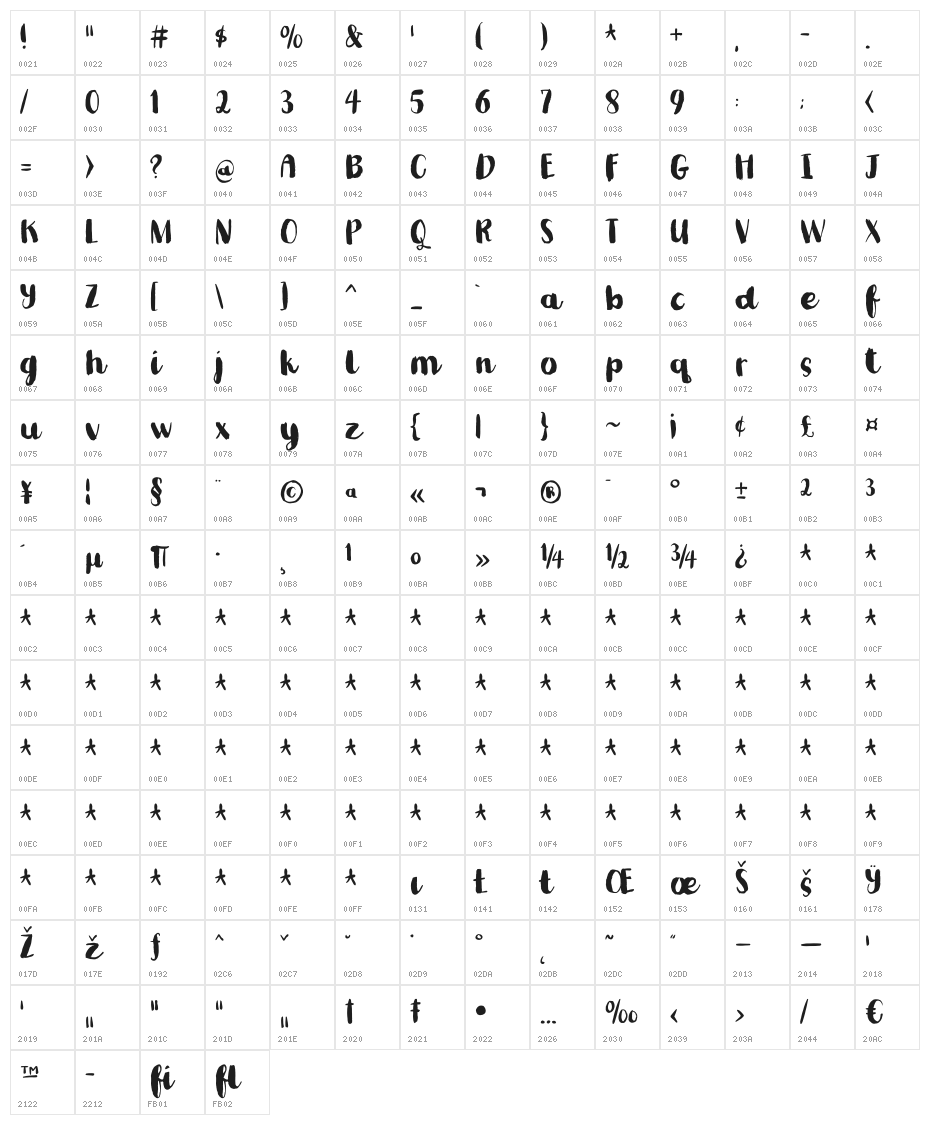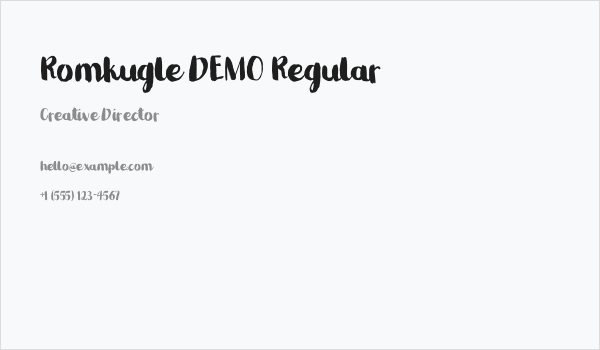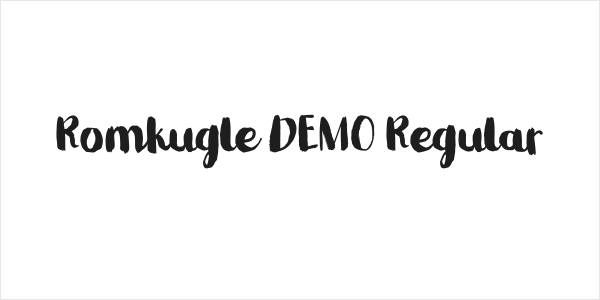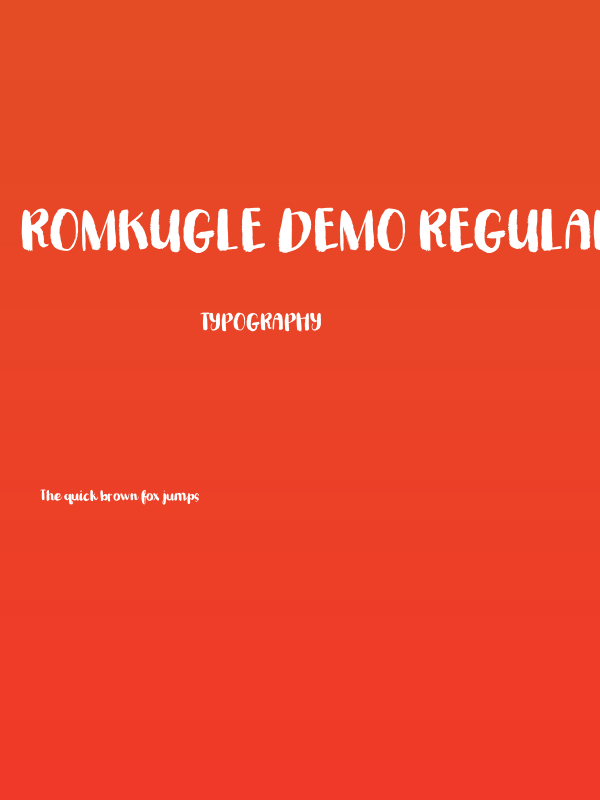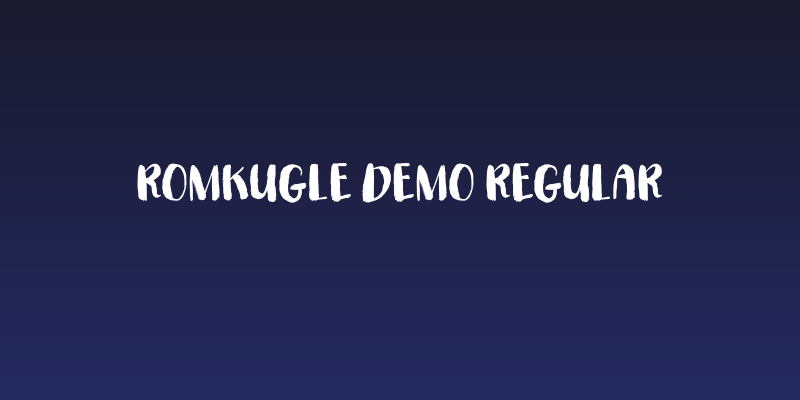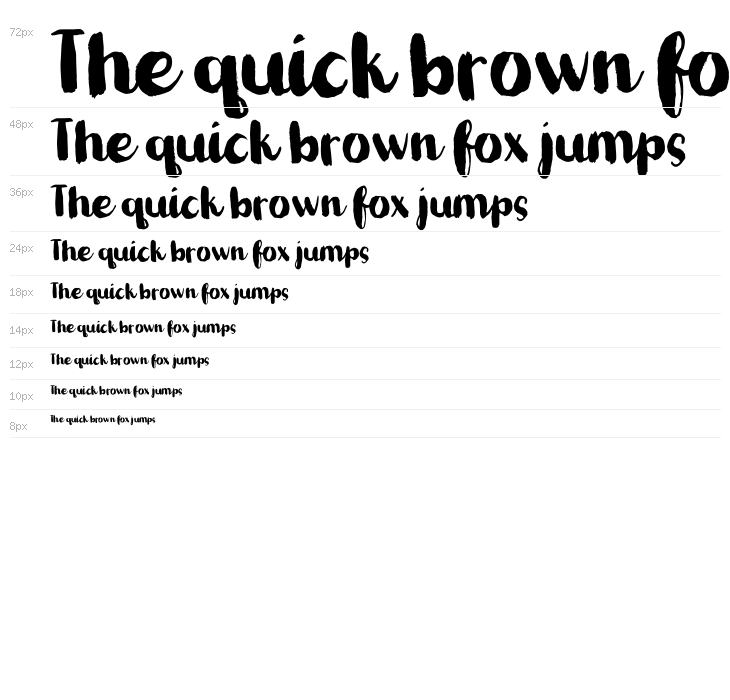
Romkugle DEMO Regular Font
Romkugle DEMO Regular Description
This font features a bold, brush-like style with a hand-painted appearance. The strokes are thick and expressive, giving it a dynamic and artistic feel. The uppercase letters are tall and commanding, while the lowercase letters maintain a consistent flow with a slightly rounded form. Numbers and special characters follow the same bold and expressive style, making them stand out. The overall look is energetic and creative, suitable for projects that require a personal touch or artistic flair.
| Proposed Projects | Ideal for artistic projects, branding, posters, and any design requiring a personal, creative touch. |